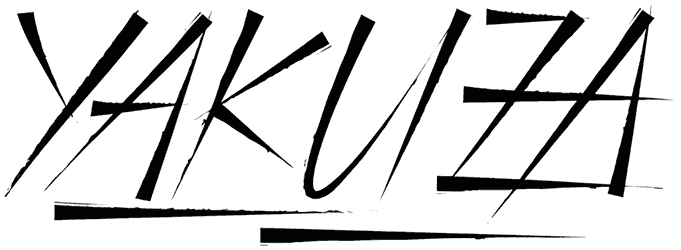
Yakuza Font
Sometimes the alphabet of other languages would be a brilliant source of inspiration for designing a ninja font such as Yakuza. Due to its breathtaking and eccentric style, it would be easily matched with a wide set of graphic content such as movie posters, video game banners, book covers, brochures, and labels.
Although this all-caps font doesn’t support numbers and punctuation, it is still capable of adding a sense of genius, drama, innovation, and dynamism.